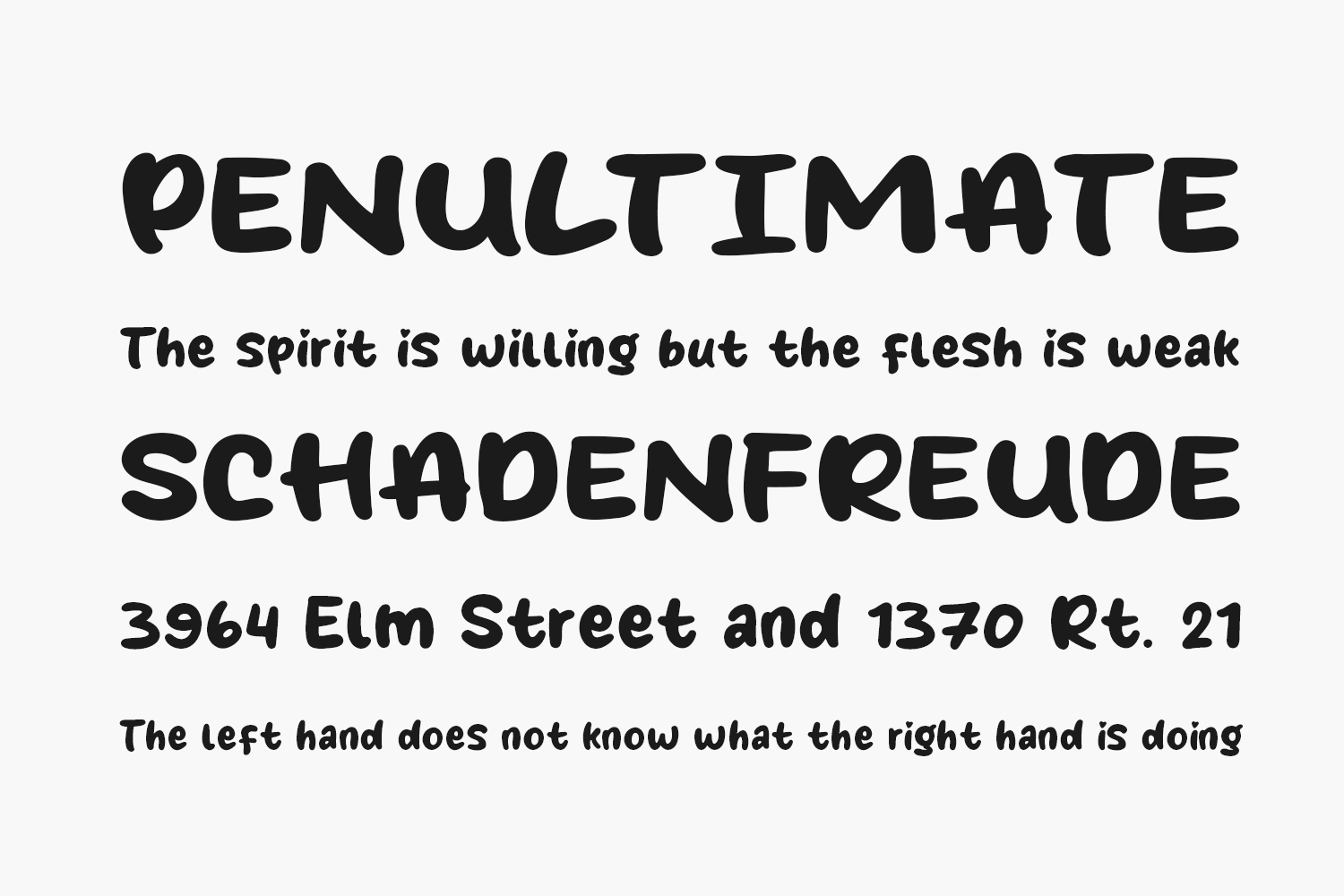
Introducing Pinky Style Free Font: a dynamic and lively display typeface that radiates charisma and allure. This font showcases playful letterforms and delightful curves, infusing any design with a sense of amusement. Whether it’s headlines, logos, or imaginative endeavors craving a dash of character, Pinky Style Font encapsulates the spirit of happiness and inventiveness, ensuring your text shines with its exceptional and spirited flair. Pinky Style Free Font is free for personal use only. Please purchase the full version for commercial use.